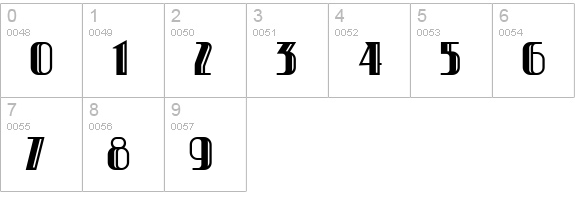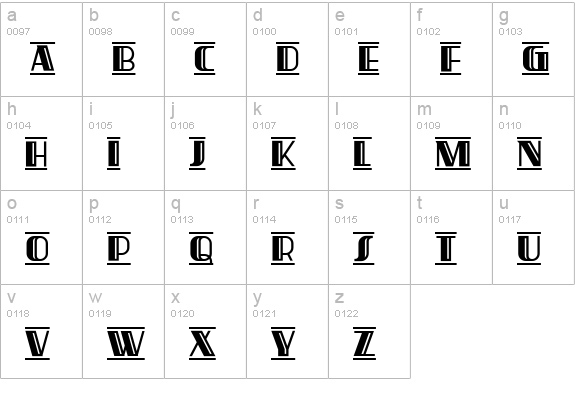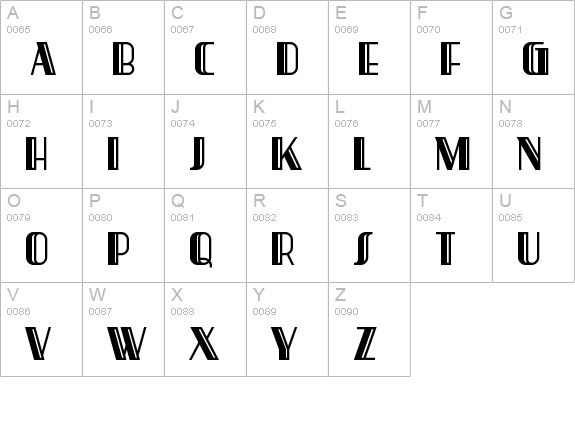
Gotham Rail Company NF font is a striking and bold typeface that exudes a sense of power and sophistication. Its clean lines and modern design make it perfect for conveying a sense of strength and professionalism in any project. With its unique blend of elegance and authority, Gotham Rail Company NF font is sure to make a lasting impression. Best of all, this versatile font is available for free download at FontsMarket.com! Whether you're designing a logo, creating a poster, or crafting a website, Gotham Rail Company NF font offers the perfect combination of style and functionality. Don't miss out on this fantastic opportunity to enhance your designs with this exceptional font. Download Gotham Rail Company NF font today and elevate your projects to new heights!